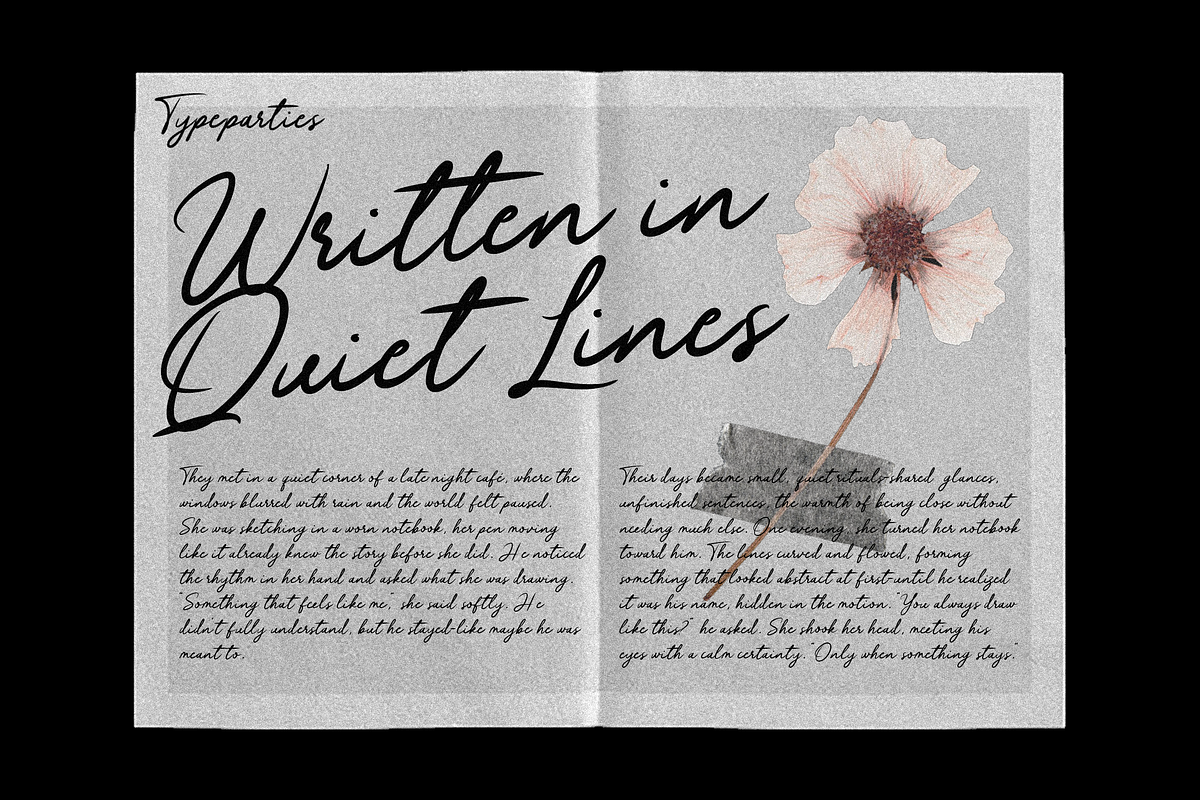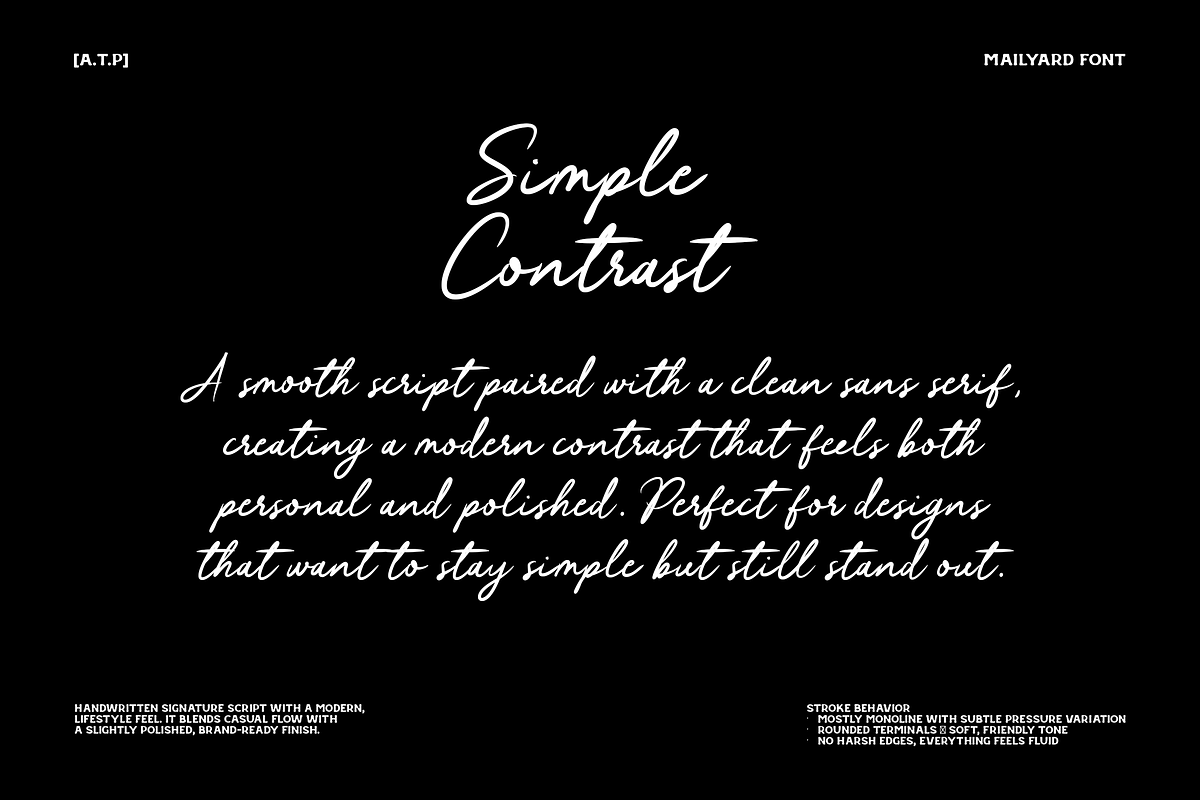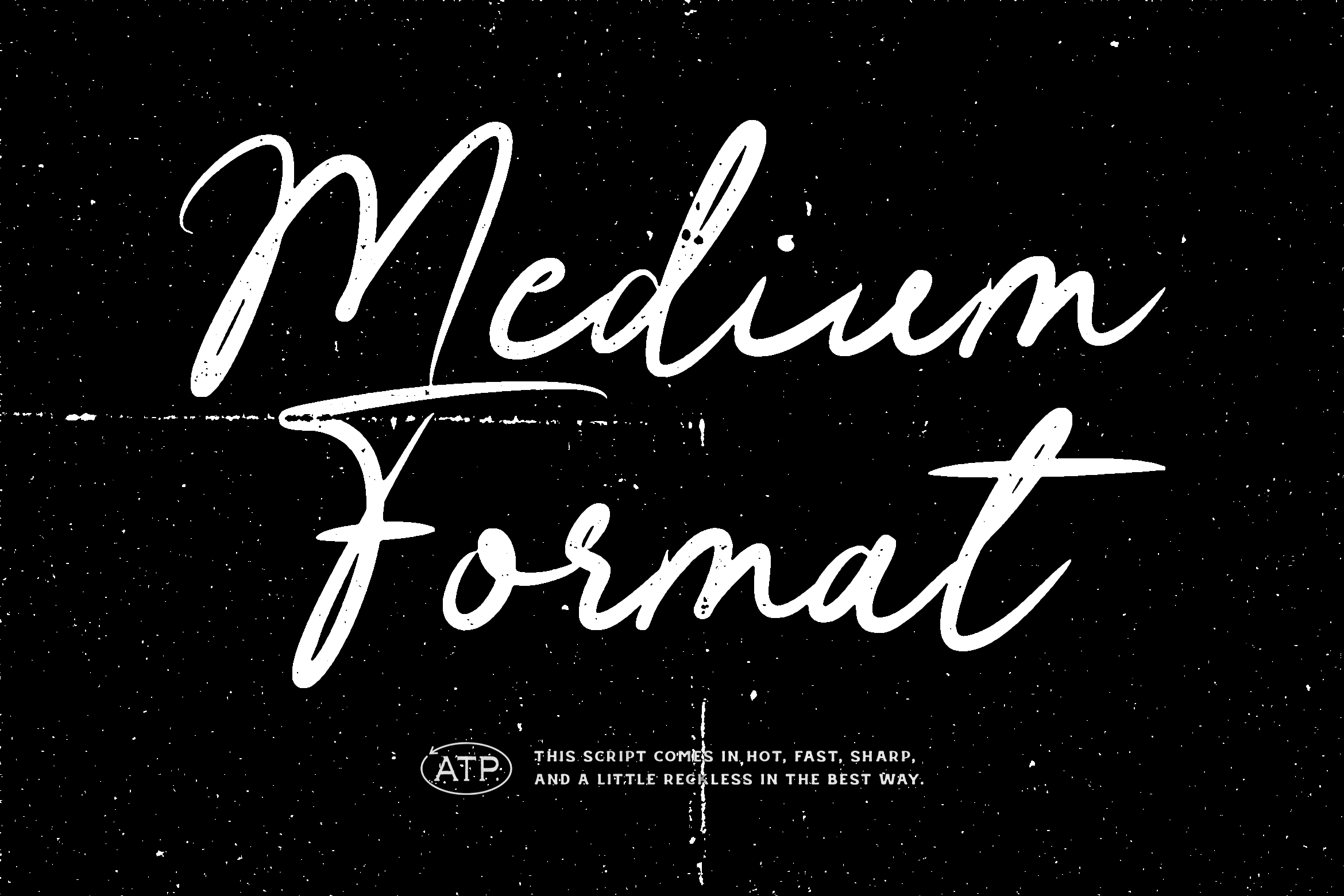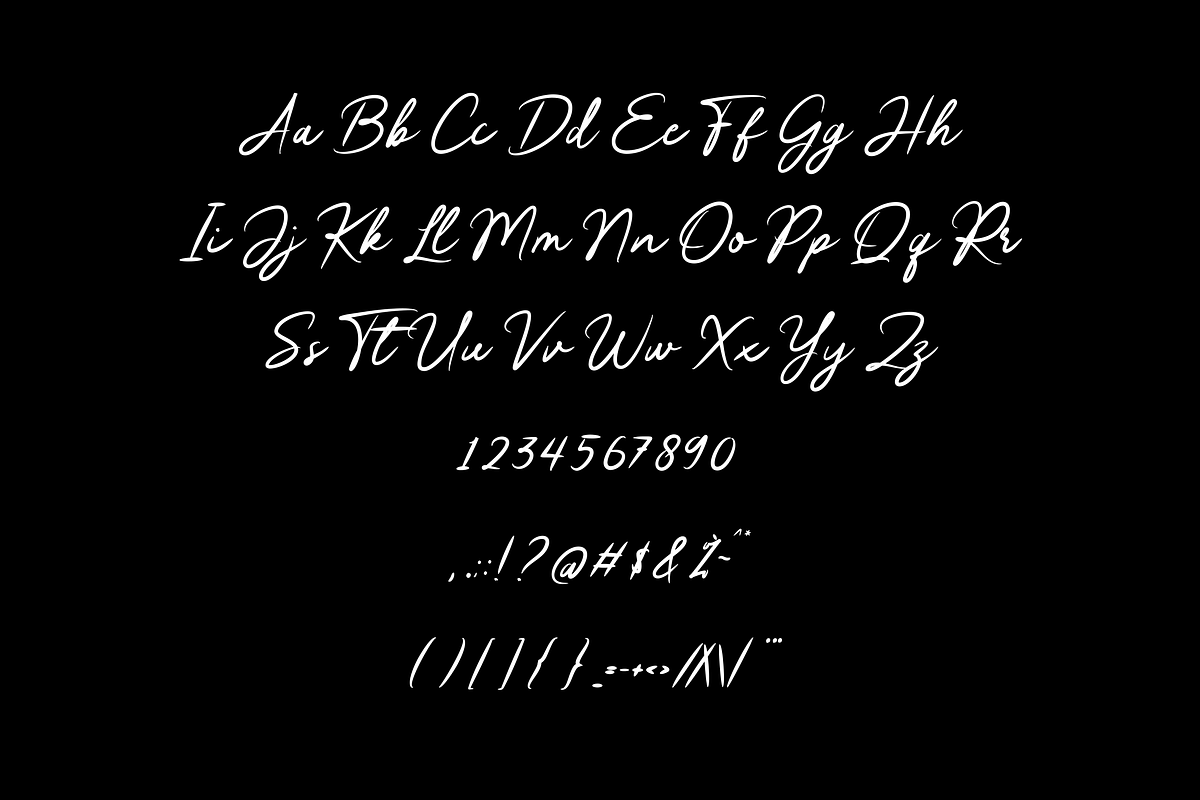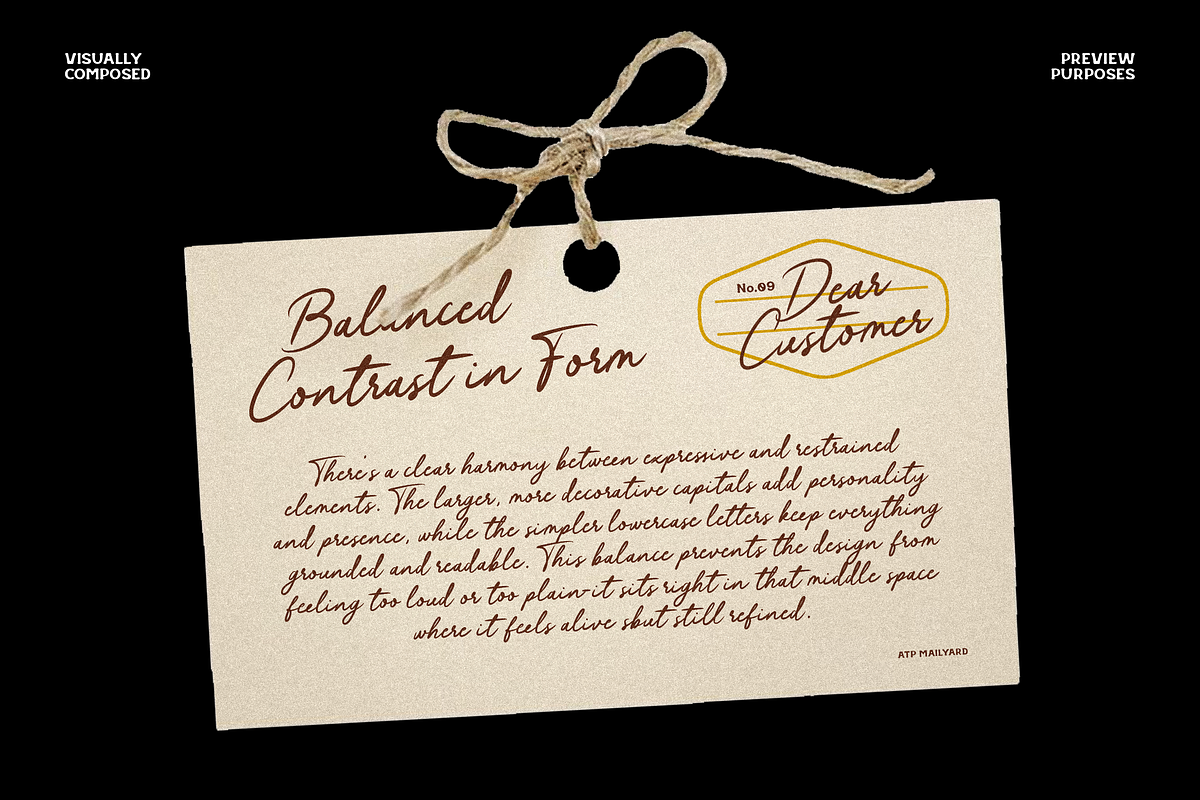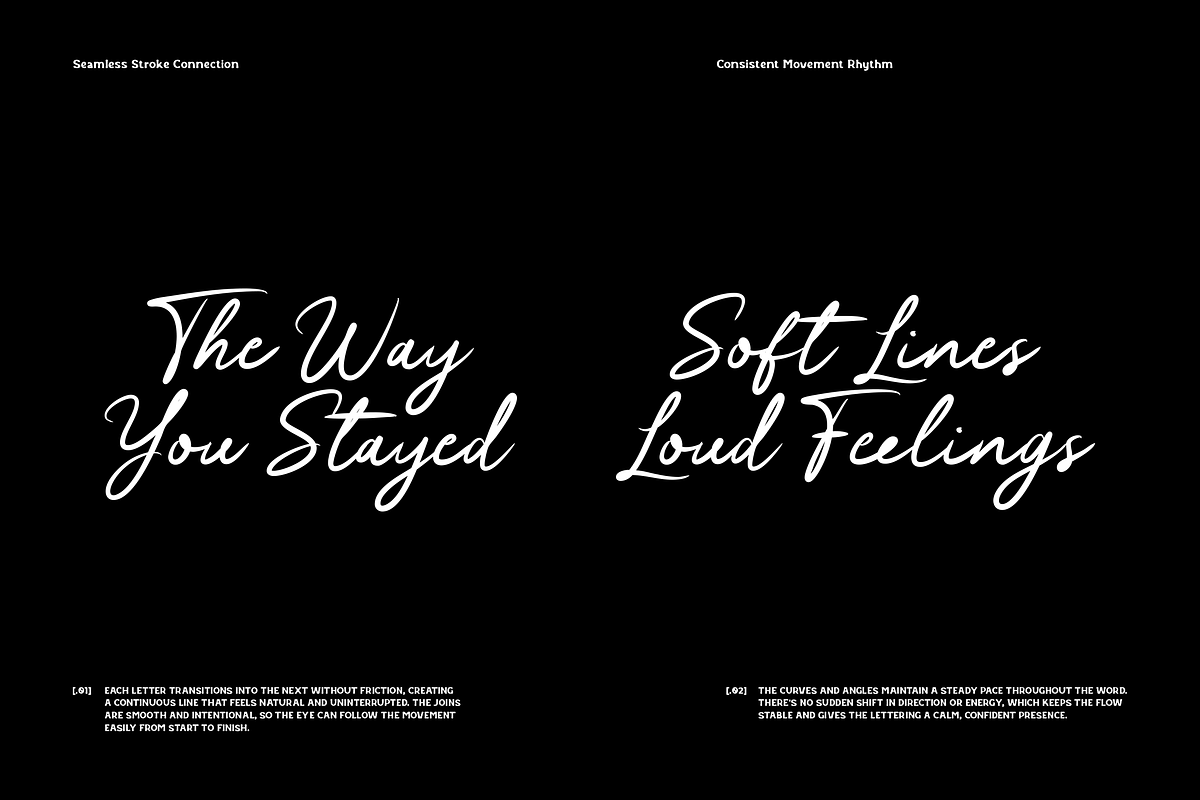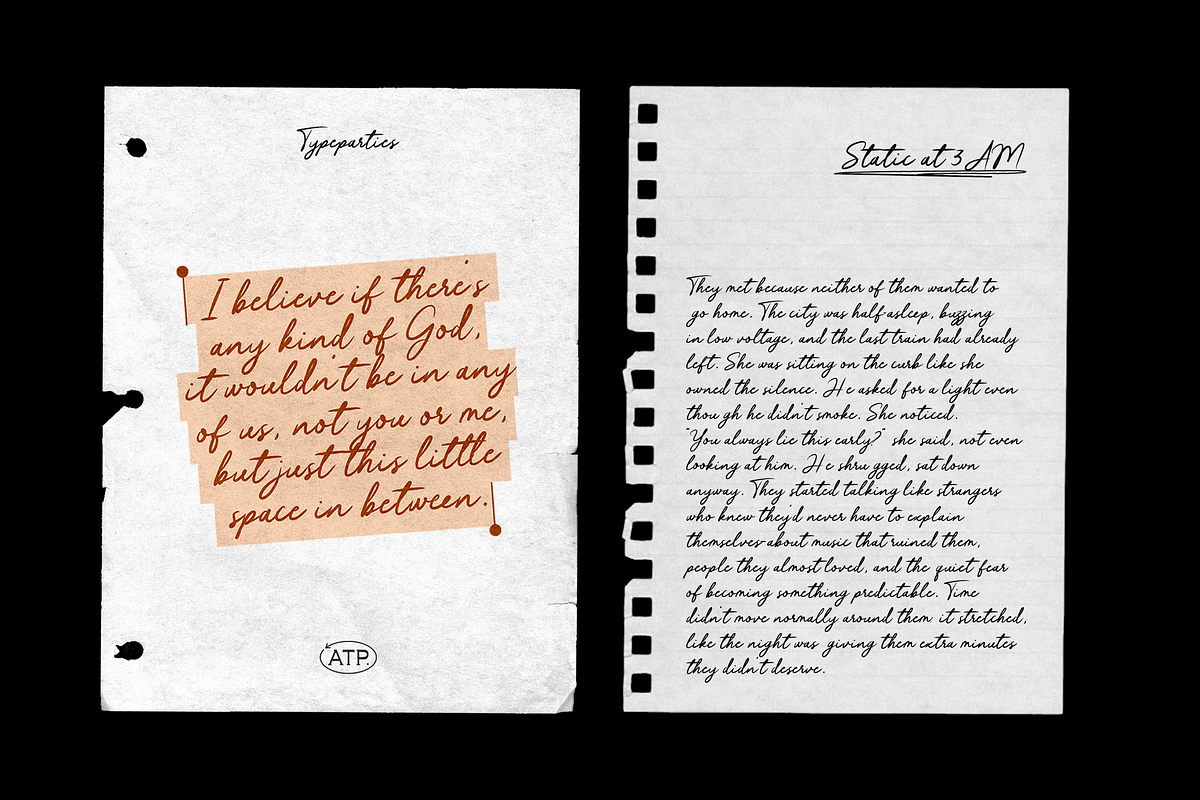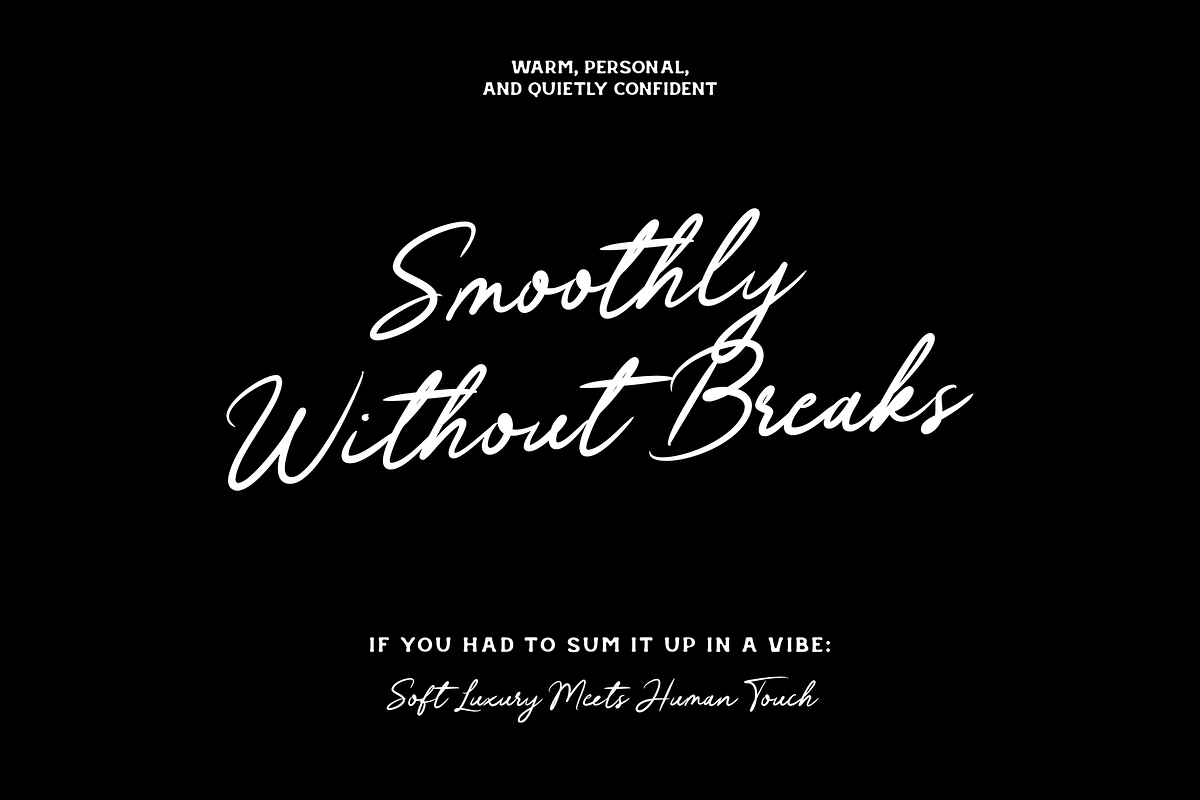
Mailyard - Script Font
A smooth, handwritten script that feels personal and effortless. The strokes flow naturally with soft curves and confident swashes, giving it that “signed by hand” energy. It leans elegant but still relaxed—perfect for branding that wants to feel close, warm, and a bit intimate.
There’s a subtle contrast in thickness that adds rhythm without overcomplicating things, while the long, sweeping tails give it a signature-style attitude. It’s the kind of lettering that works beautifully for logos, quotes, packaging, or anything that needs a human touch with a clean, modern vibe.